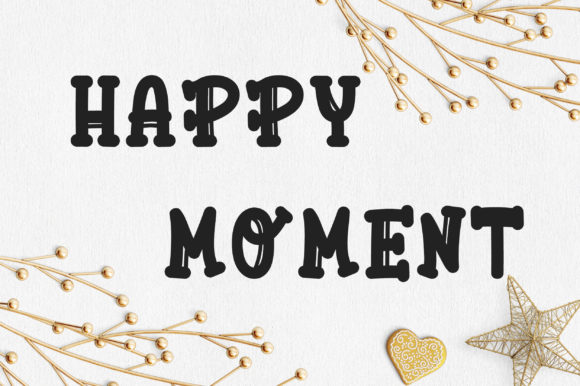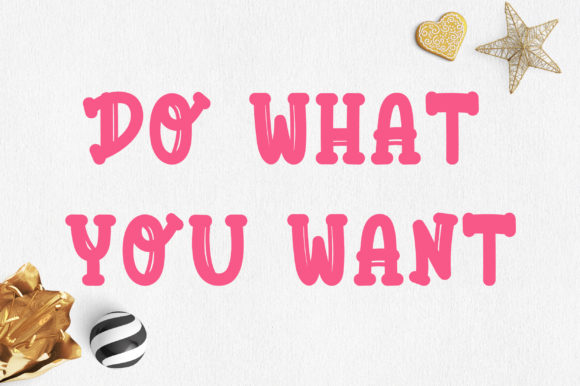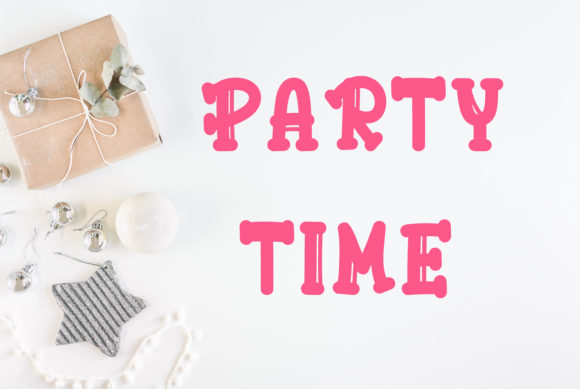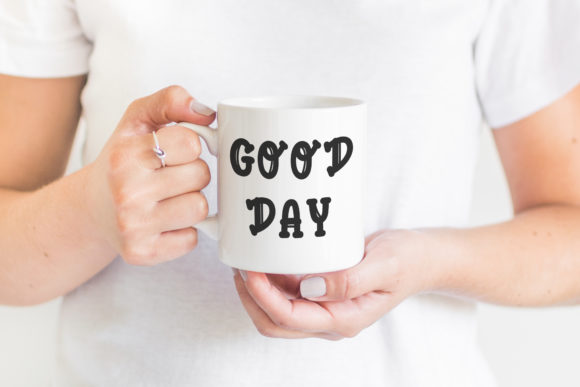
Celebration Font: Elevate Your Designs with a Cheerful and Authentic Display Font
Are you looking for a font that can add a touch of excitement and joy to your designs? Look no further than Celebration Font! This cheerful and authentic display font is perfect for a wide range of design projects, from branding and headings to invitations and logos. In this article, we’ll take a closer look at Celebration Font and explore its features, benefits, and uses.
What is Celebration Font?
Celebration Font is a display font designed to bring a sense of joy and celebration to your designs. Its unique and authentic style makes it perfect for creating eye-catching headings, titles, and text that will grab the attention of your audience. Whether you’re designing a logo, invitation, or social media post, Celebration Font is sure to elevate your design to the highest level.
Key Features of Celebration Font
- Cheerful and Authentic Style: Celebration Font has a unique and authentic style that’s perfect for creating designs that are fun, playful, and celebratory.
- High-Quality Design: The font is designed with high-quality craftsmanship, ensuring that it looks great in any design project.
- Versatile: Celebration Font can be used for a wide range of design projects, from branding and headings to invitations and logos.
- Easily Readable: Despite its decorative style, Celebration Font is easily readable, making it perfect for use in titles, headings, and short texts.
Benefits of Using Celebration Font
So why should you choose Celebration Font for your design projects? Here are just a few benefits of using this amazing font:
- Adds a Touch of Joy: Celebration Font adds a touch of joy and excitement to your designs, making them more engaging and attention-grabbing.
- Elevates Your Designs: With its high-quality design and unique style, Celebration Font can elevate your designs to the highest level, making them stand out from the crowd.
- Saves Time: Celebration Font is easy to use and can be applied to a wide range of design projects, saving you time and effort.
- Perfect for DIY Projects: Whether you’re a professional designer or a DIY enthusiast, Celebration Font is perfect for use in a variety of craft projects, such as scrapbooking, card making, and more.
Uses of Celebration Font
Celebration Font is a versatile font that can be used for a wide range of design projects, including:
- Branding: Use Celebration Font to create eye-catching logos and branding materials that will help your business stand out.
- Headings and Titles: Add a touch of excitement to your headings and titles with Celebration Font, making them more engaging and attention-grabbing.
- Invitations: Create beautiful and unique invitations for parties, weddings, and other celebrations with Celebration Font.
- Logos and Icons: Use Celebration Font to create custom logos and icons that will help your business or brand stand out.
- Labels and Packaging: Add a touch of personality to your labels and packaging with Celebration Font, making them more eye-catching and memorable.
Tips for Using Celebration Font
Here are a few tips for using Celebration Font in your design projects:
- Use it Sparingly: While Celebration Font is a beautiful font, it’s best used sparingly to add emphasis and excitement to your designs.
- Pair it with Other Fonts: Experiment with pairing Celebration Font with other fonts to create a unique and eye-catching design.
- Adjust the Size and Color: Adjust the size and color of Celebration Font to fit your design needs and style.
Celebration Font is a cheerful and authentic display font that’s perfect for adding a touch of excitement and joy to your designs. With its high-quality design, versatile uses, and ease of use, Celebration Font is a must-have for designers and crafters alike. Whether you’re creating branding materials, headings, invitations, or logos, Celebration Font is sure to elevate your designs to the highest level.